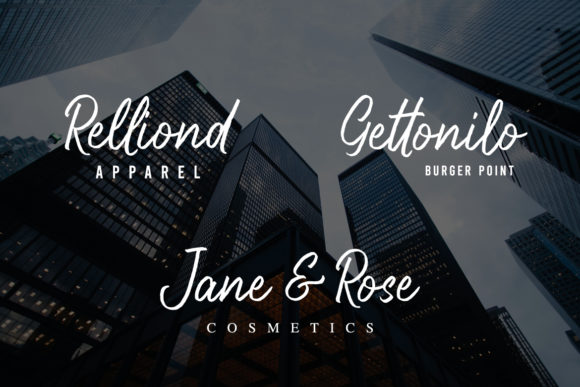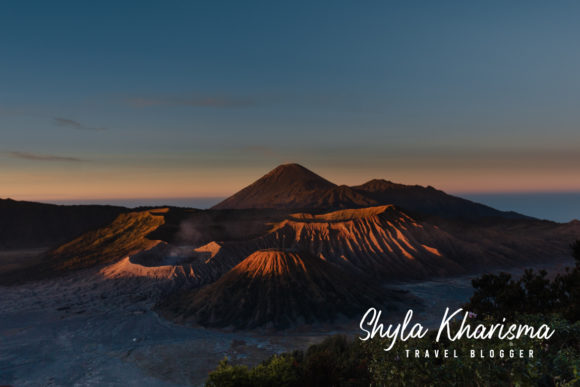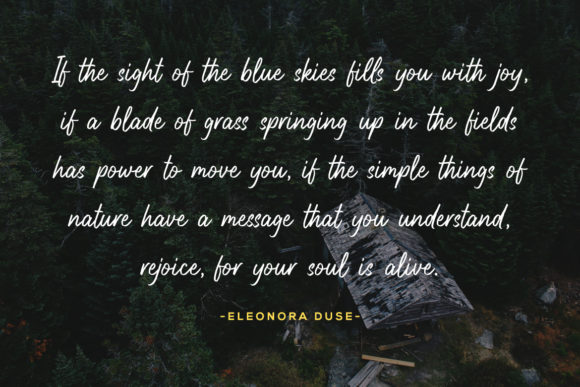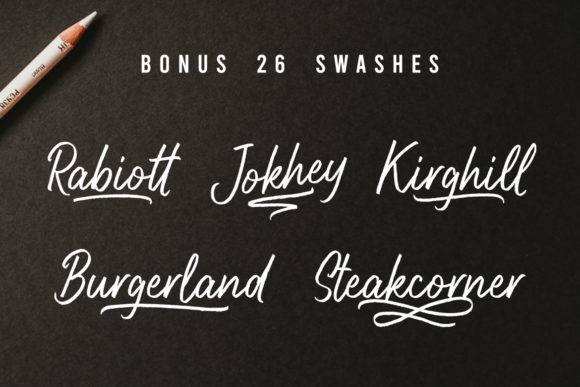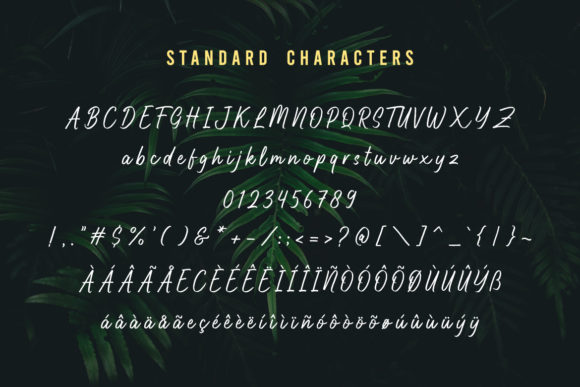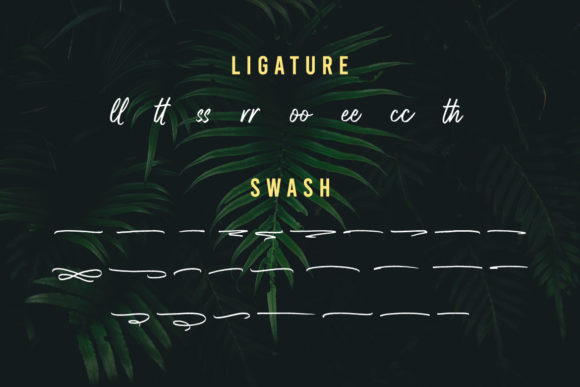
Introduction to Highnorth Font
Have you ever found yourself rummaging through your sketchbook, searching for the perfect handwritten script to bring your creative project to life? Maybe it was a late-night brainstorming session or a moment of inspiration during a walk in the park. Whatever the case, you know the feeling of wanting to capture that special something in your design.
As designers, we’re constantly on the lookout for the perfect font to elevate our work. That’s where the Highnorth Font comes in – an incredibly distinct, delicate, and timeless handwritten font that’s perfect for adding a personal touch to your designs.
With its versatility and high quality, the Highnorth Font is an invaluable design resource for any project, from wedding invitations to business cards, and everything in between.
Key Features of Highnorth Font
- High-resolution, high-quality design resource ideal for creative projects, including logos, icons, and graphics.
- Features a transparent background, making it perfect for use on images or backgrounds with varying levels of opacity.
- Includes a range of customizable elements, allowing designers to create unique and tailored designs for their creative projects.
- Designed to be highly legible and readable, even at small sizes, making it an excellent choice for mobile and web design applications.
Honest Review: Highnorth Font
I recently had the chance to work with the Highnorth Font in a creative project and I must say, I was impressed with its clean and modern design.
- ✨ High-quality typography: The font has a clear, crisp look that’s perfect for headings and titles.
- ✨ Wide range of styles: The Highnorth Font comes in a variety of styles, from bold to thin, making it a great resource for designers.
- ⚠️ Limited language support: Unfortunately, the Highnorth Font only supports Latin-based languages, which may be a limitation for designers working on projects that require other languages.
- ⚠️ Not ideal for small text: While the font looks great in larger sizes, it can be difficult to read in smaller sizes, making it less suitable for body text.
Tips for Getting the Most Out of Highnorth Font
Here are a few tips for getting the most out of Highnorth Font:
- Use the font in conjunction with other high-quality design resources to create a cohesive and professional look.
- Experiment with different font sizes and styles to add visual interest to your design.
- Use the font’s transparent background to create a sense of depth and layering in your design.
Highnorth Font is a versatile design resource that can be used in a variety of creative projects, including:
- Social media graphics and advertisements